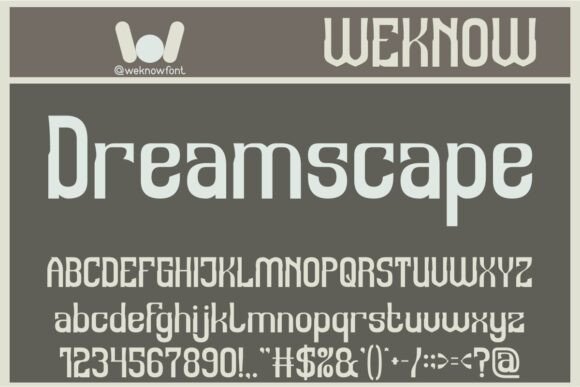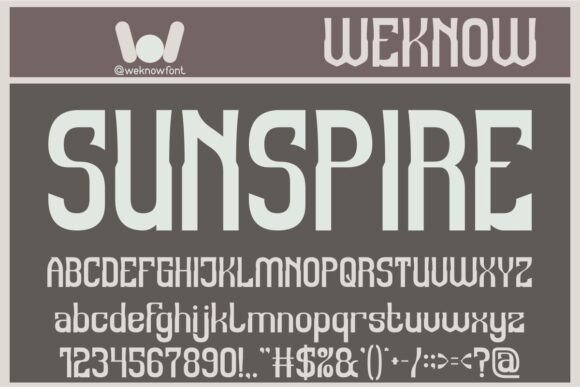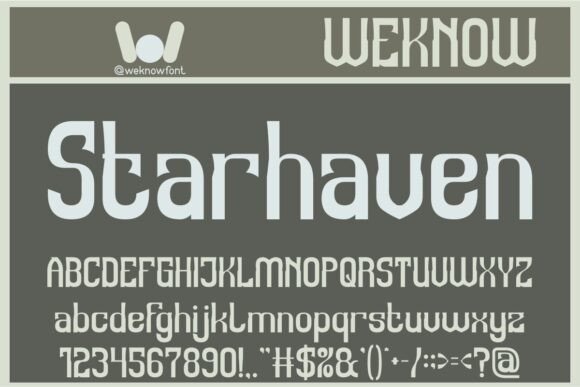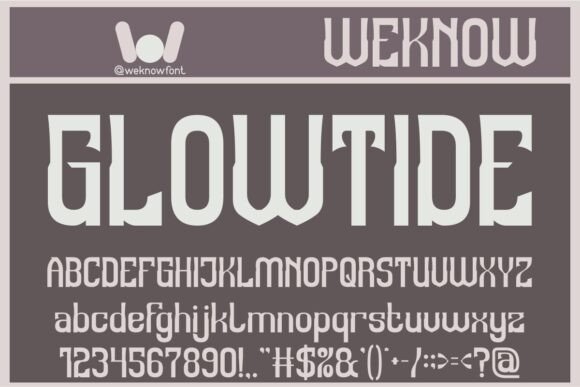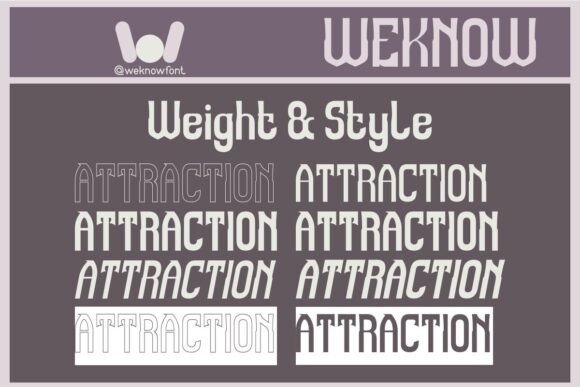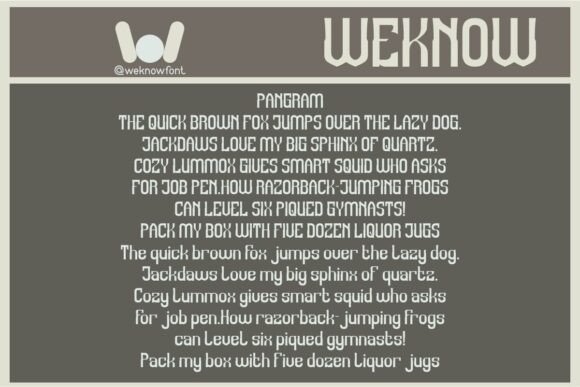
Introducing Attraction Font: Elevate Your Designs with a Touch of Gothic Charm
The Allure of Attraction Font
Attraction is a unique blend of contemporary aesthetics with an echo of gothic charm. This modern display font is designed to effortlessly accentuate your logos, headlines, and corporate identities. What makes Attraction stand out is its versatility – it’s a perfect addition to a diverse array of industries, from fashion to entertainment.
What I Love About Attraction Font
- ✨ Unique Gothic Charm: Attraction brings a distinctive touch to your designs, setting them apart from the crowd.
- ✅ Highly Versatile: Whether it’s a striking poster, a thrilling movie title, or a captivating magazine layout, this font adapts seamlessly.
- 💻 Digital and Print Ready: With its clear and crisp lines, Attraction performs exceptionally well in both digital and print formats.
- 🎨 Creative Freedom: The font comes with a range of OpenType features, glyphs, and stylistic alternates, giving you plenty of room for creative experimentation.
While Attraction is an impressive font, there are a few things to keep in mind:
- 🤔 Legibility at Small Sizes: Like many display fonts, Attraction’s intricate details may not be as legible at very small sizes. It’s best used for headlines or titles.
- ⚠️ Pairing with Other Fonts: Due to its strong personality, you’ll want to pair Attraction with complementary fonts to avoid visual clash. A simple, sans-serif font often works well.
The Backstory of Attraction Font
The inspiration behind Attraction comes from a blend of old-world charm and modern design sensibilities. Imagine walking through a vintage, foggy street lined with gothic architecture, yet there’s a neon light flickering in the distance. This contrast sparked the creation of Attraction – a font that brings together the mystique of the past with the sleekness of the present.
Q: What makes Attraction Font unique?
A: Attraction Font stands out due to its blend of contemporary aesthetics and gothic charm, making it perfect for projects that require a touch of drama and elegance.
Q: Is Attraction Font suitable for body text?
A: While Attraction is primarily a display font, it’s best used for headlines and titles due to its intricate details. For body text, a simpler, more legible font is recommended.